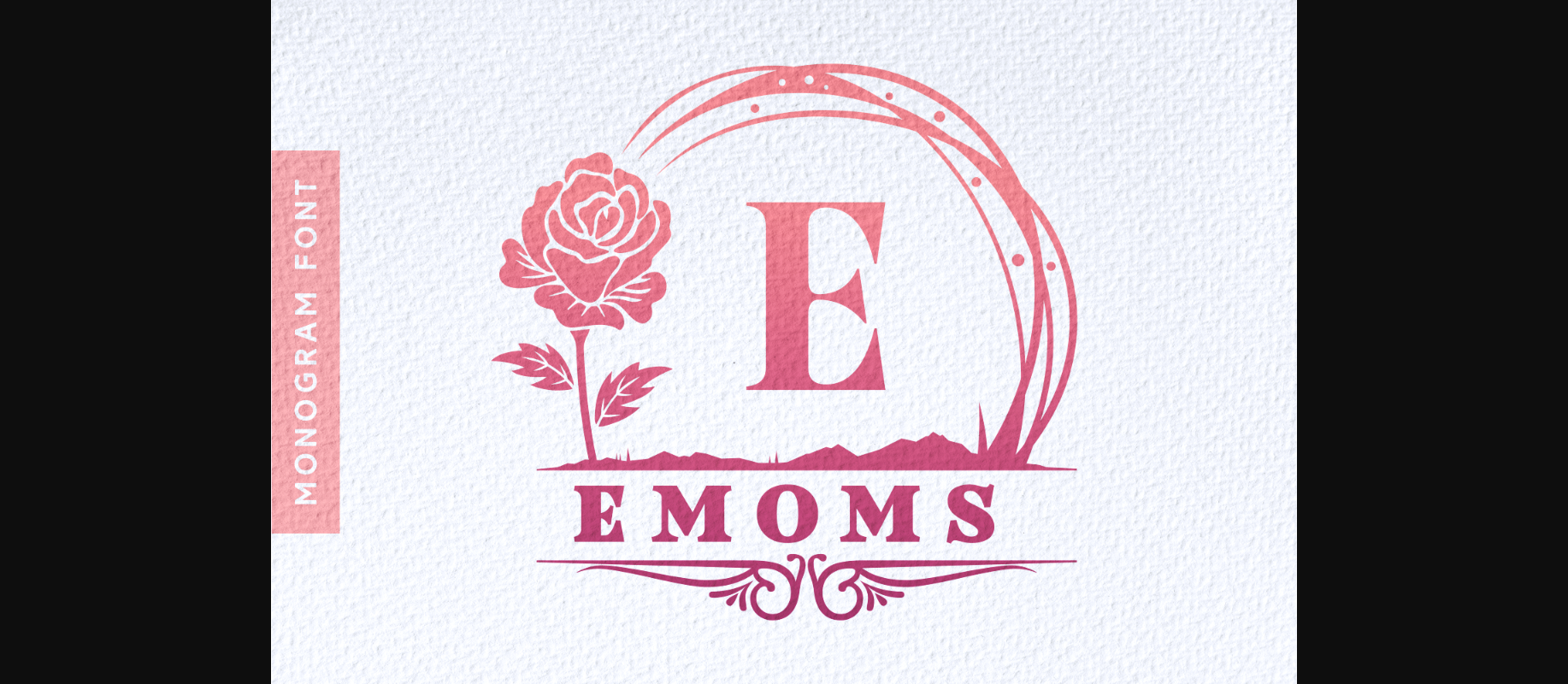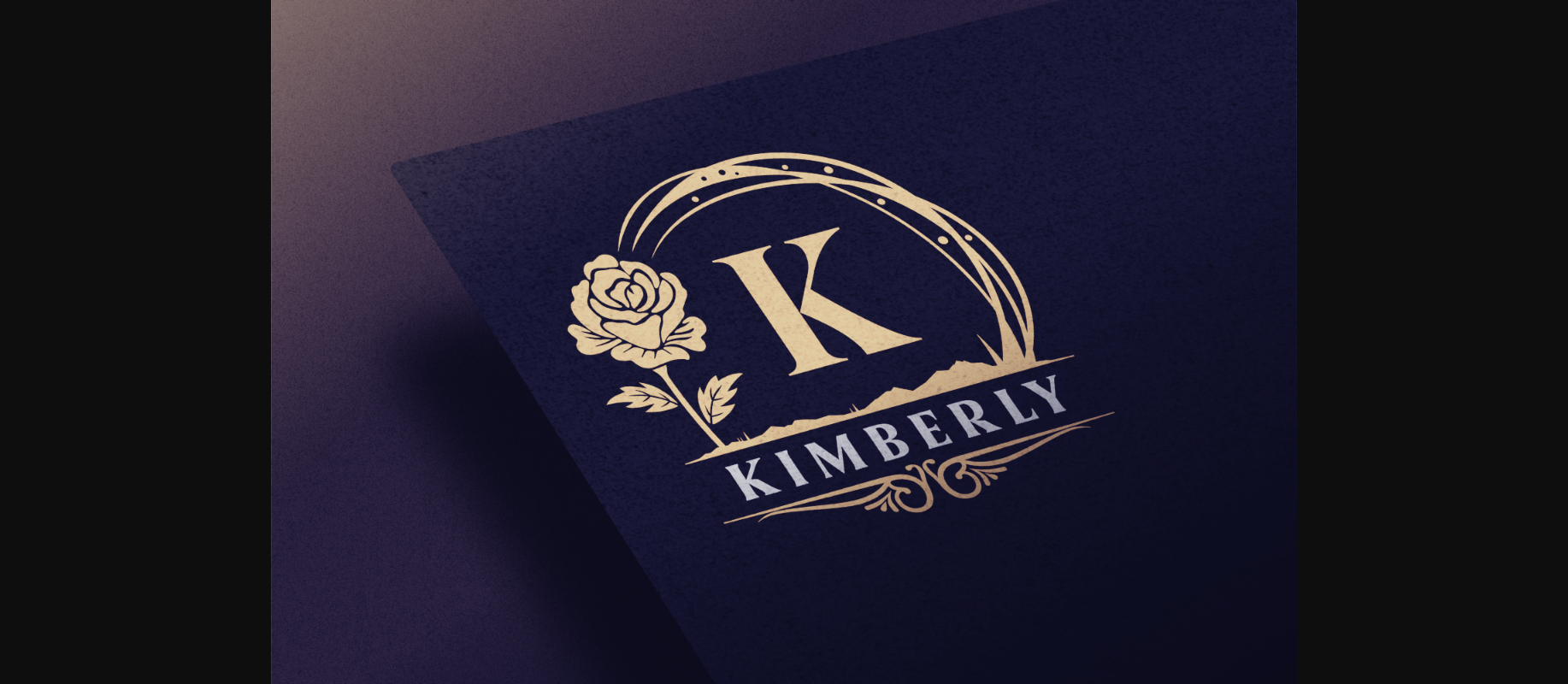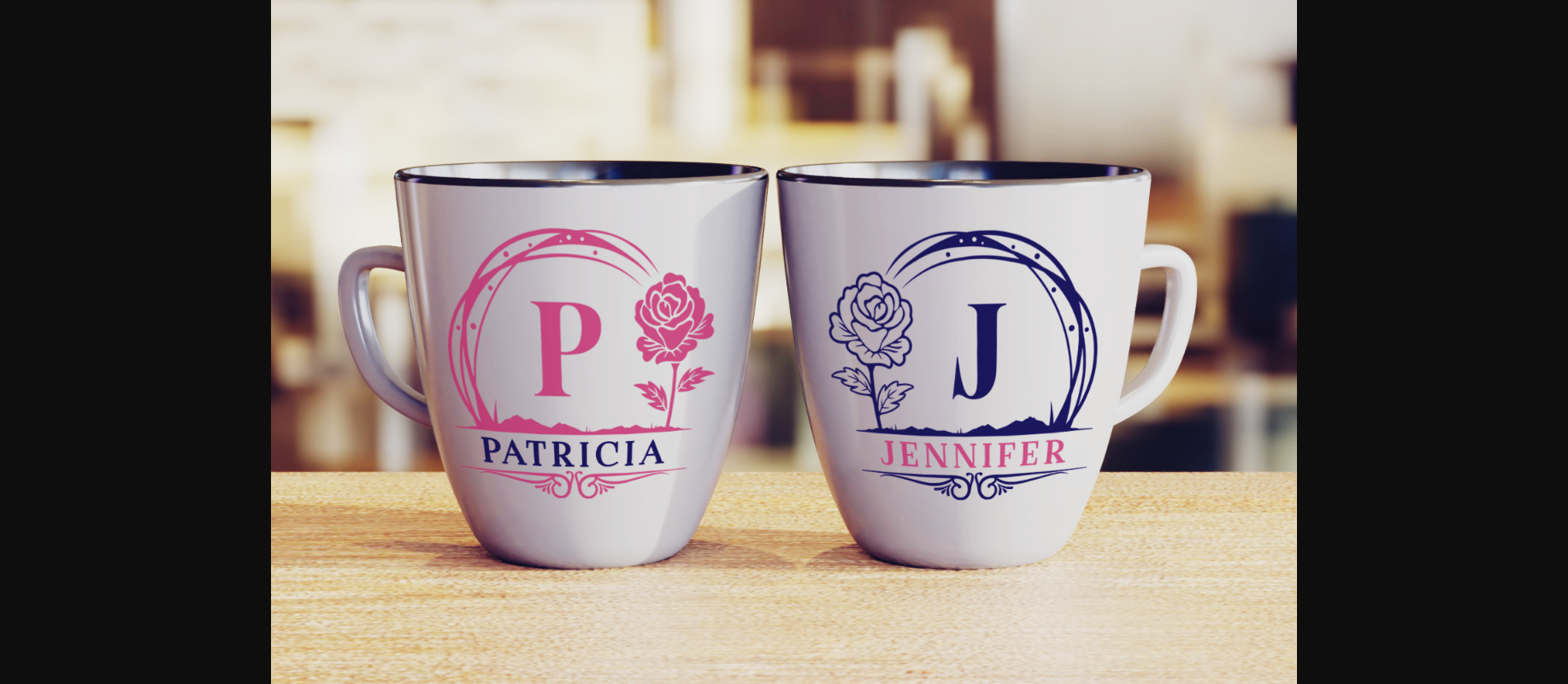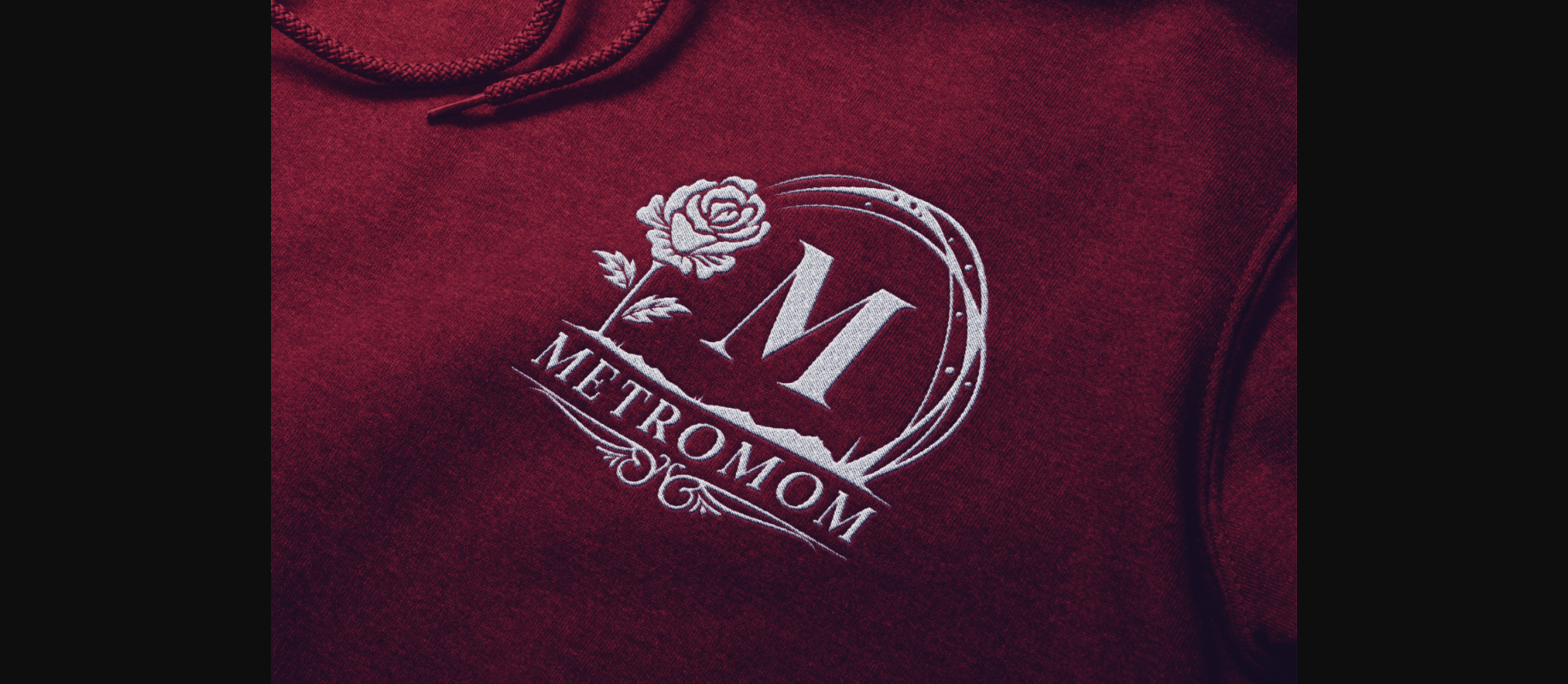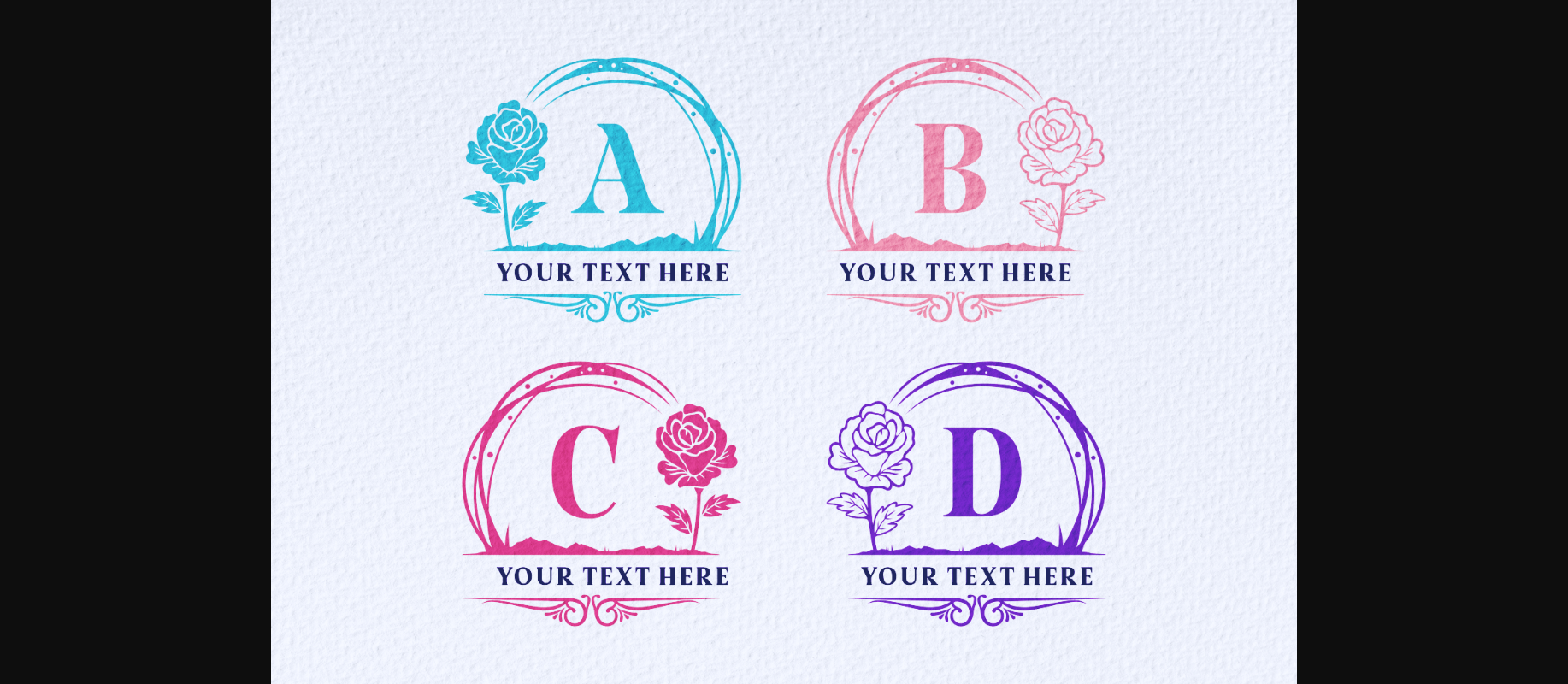
About Emoms Font
Emoms is a sweet, whimsical, and detailed decorative font. Featuring characters that dance along the baseline, this font will add a luxury spark to any design project that you wish to create! Emoms is PUA encoded which means you can access all of the glyphs and swashes with ease!